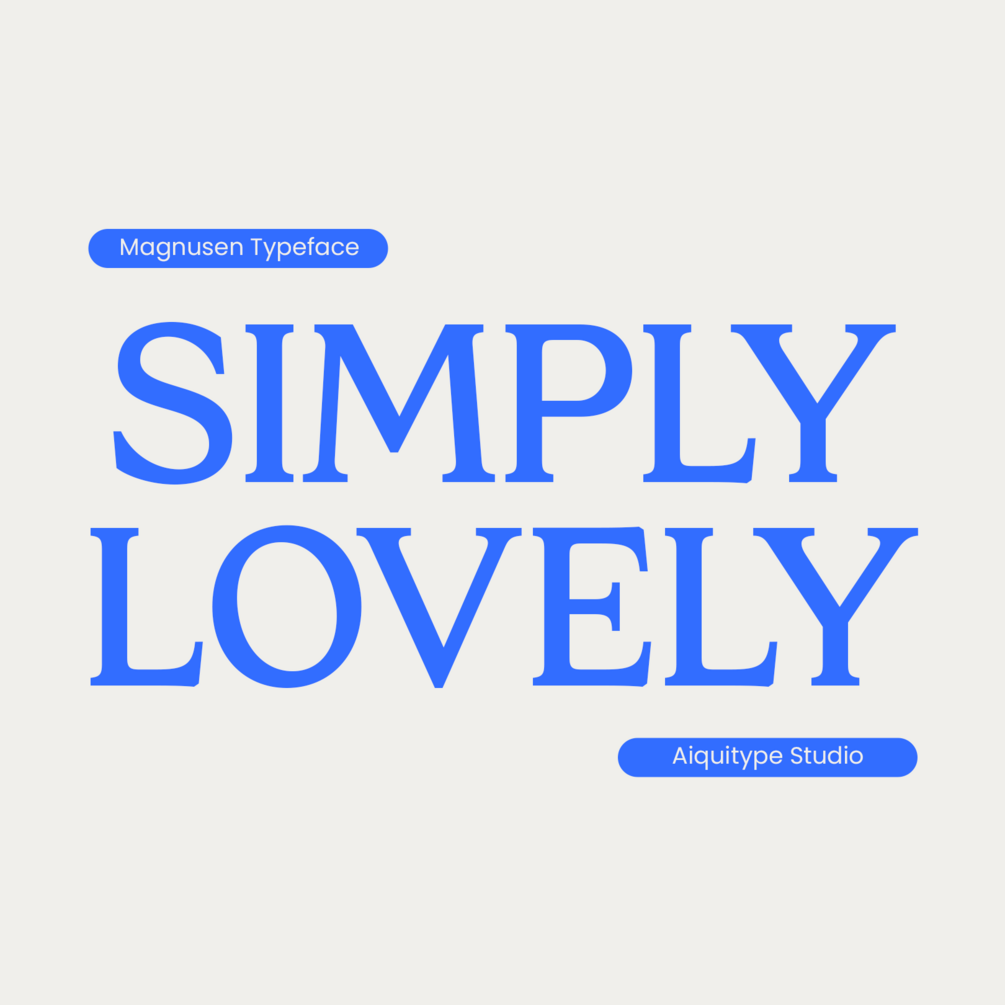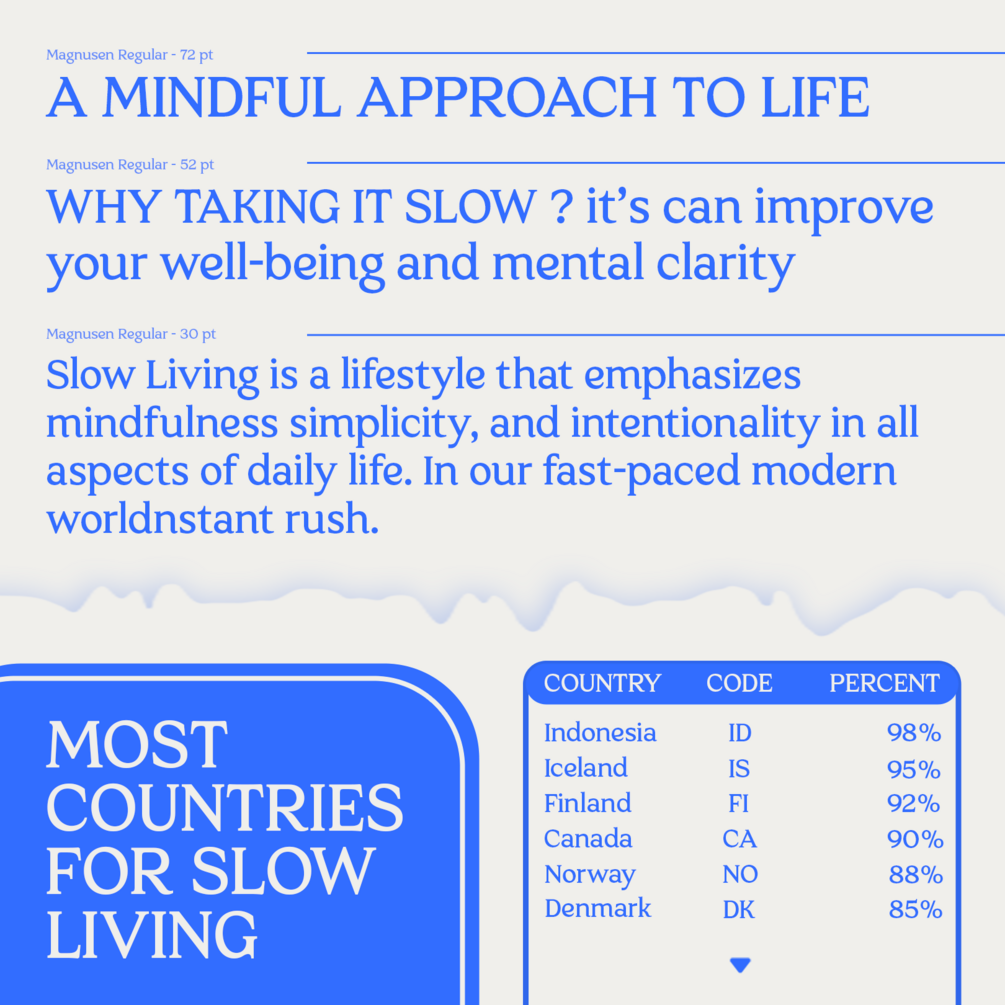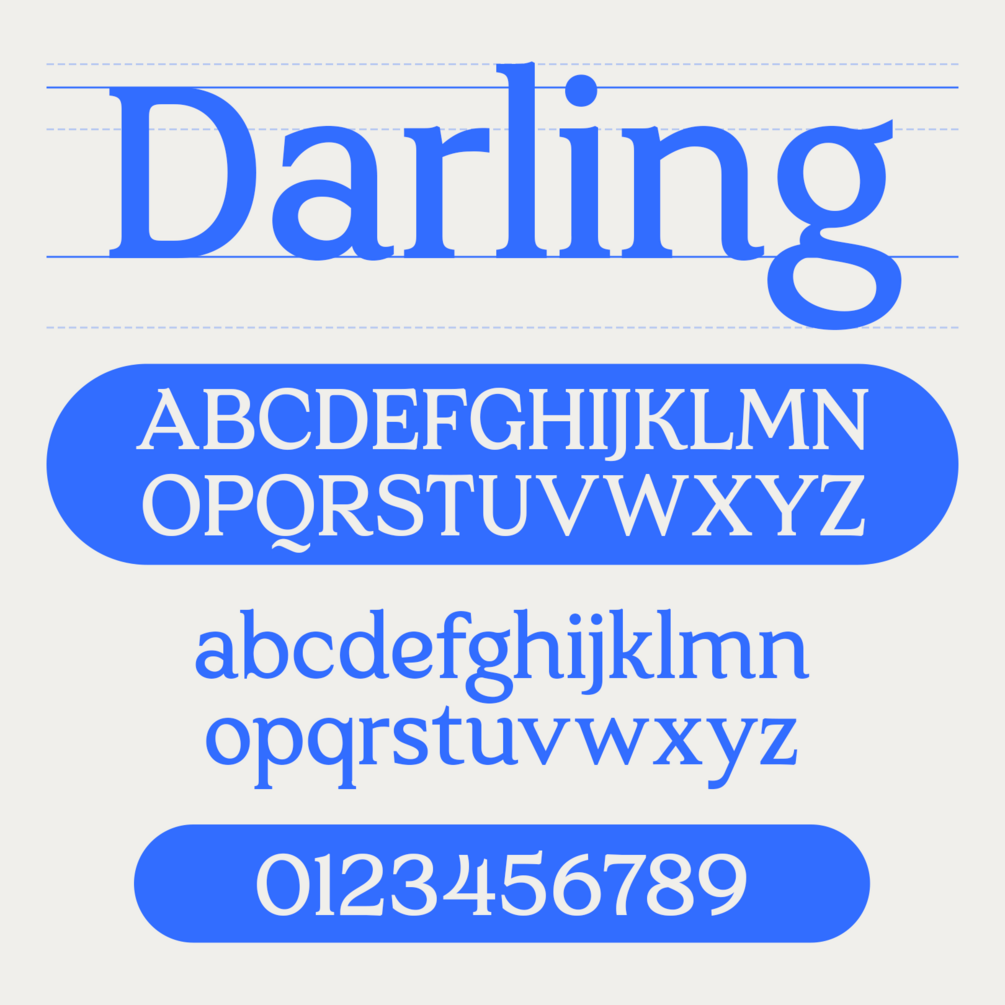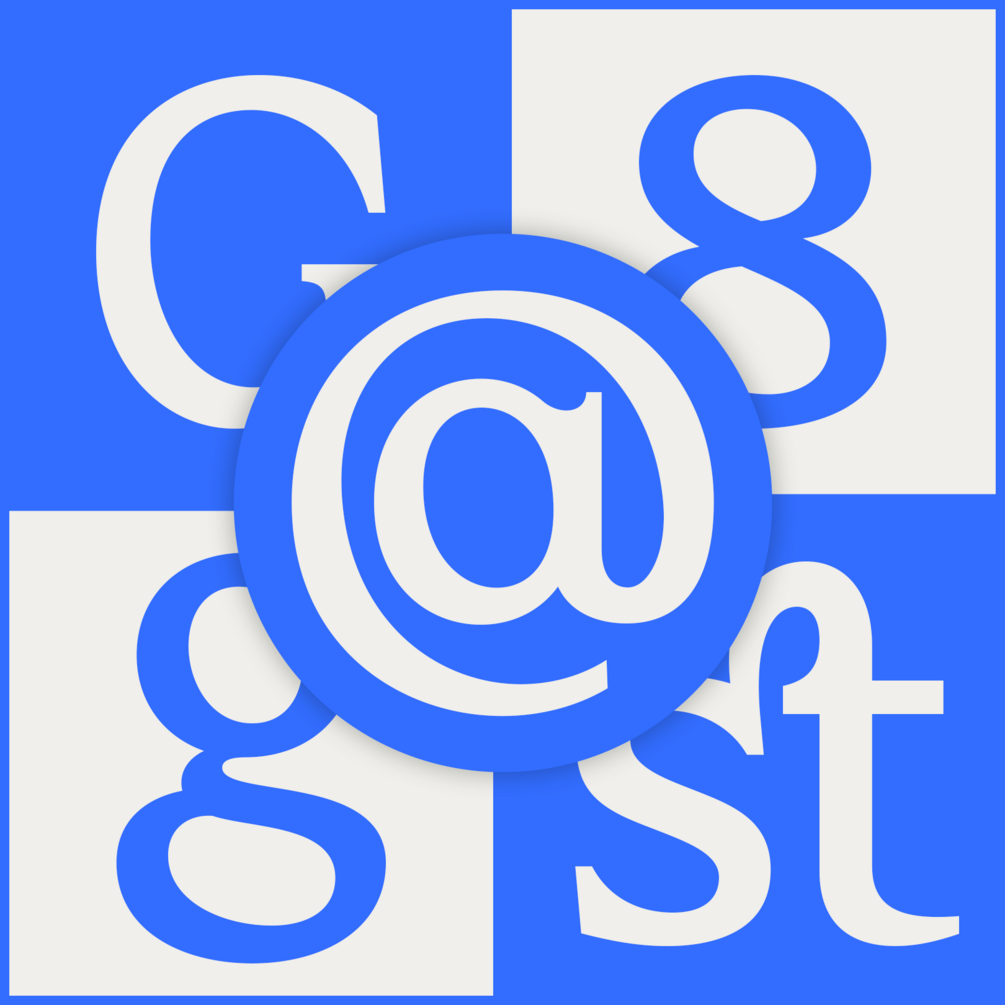
Magnusen - Free Font
Magnusen is a modern serif font designed for versatility and readability. With its clean lines and sophisticated structure, it’s perfect for a wide range of design applications, from branding and print to web design and digital media. Whether you're creating a professional logo or working on a creative project, Magnusen offers timeless elegance and style.